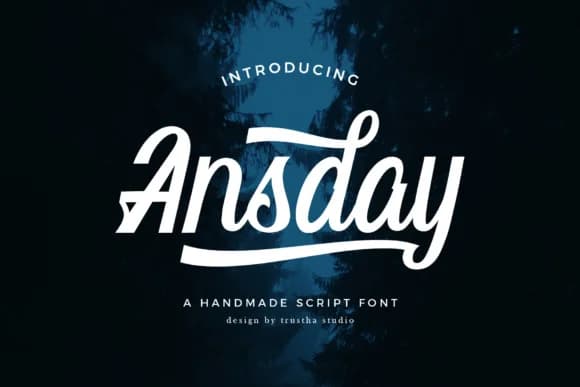
Ansday by trusthastd is a hand-lettered script font that beautifully combines the organic warmth of handwritten letterforms with a modern, approachable sensibility. The font's clean curves and fluid baseline create a distinctive personality that works equally well as a striking statement piece or a supporting element in brand applications. Its refined character set supports both display and functional contexts with equal grace. This versatile typeface shines in contemporary branding projects where a personal touch matters most, think luxury beauty brand identities, fashion collection logos, and bespoke greeting card designs. The refined letterforms also translate beautifully for wedding stationery, engagement announcements, and social media graphics where an elegant yet casual aesthetic resonates with audiences. Product packaging for artisanal goods, from handmade cosmetics to specialty food labels, benefits from the font's sophisticated handcrafted feel and attention to detail. Ansday works across both digital and print mediums, making it an excellent choice for website headers, email campaigns, and social media graphics that need visual distinction without sacrificing readability. Whether you're designing brand guidelines for a small business, creating invitations for special events, or developing visual identities for creative entrepreneurs, this script font delivers personality and professionalism in every application. Get Ansday on Creative Fabrica and introduce your design work to a font that balances elegance with accessibility.
- Elegant, Flowing, Alternative
Ansday Font is a script font that shines as a display or heading face. Pair it with a clean sans-serif or serif font for body text β the contrast creates a clear hierarchy while the two styles stay balanced and easy to read.
Ansday Font